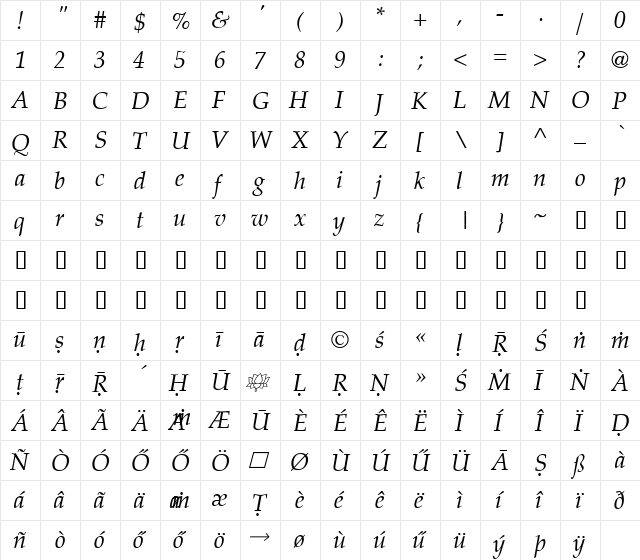
Palatino Sanskrit Hu Italic
Design Context for Palatino Sanskrit Hu Typeface
Palatino Sanskrit Hu is a composed and adaptable typeface that performs quietly and consistently across a wide range of design contexts. The slanted form adds forward momentum and visual energy.
Pro Tip: Try Palatino Sanskrit Hu for annotation and caption copy alongside an upright companion — the contrast in angle creates a dynamic but ordered typographic system.